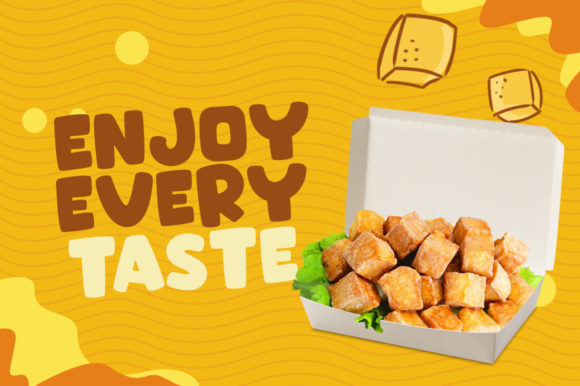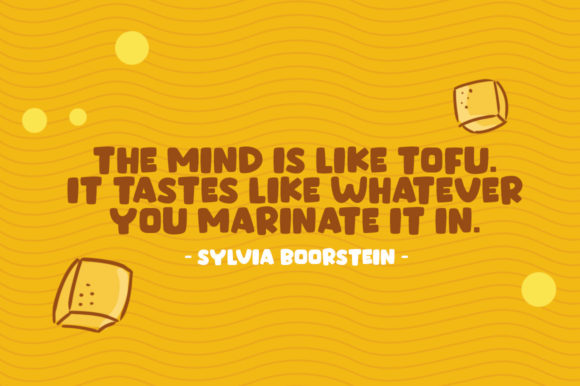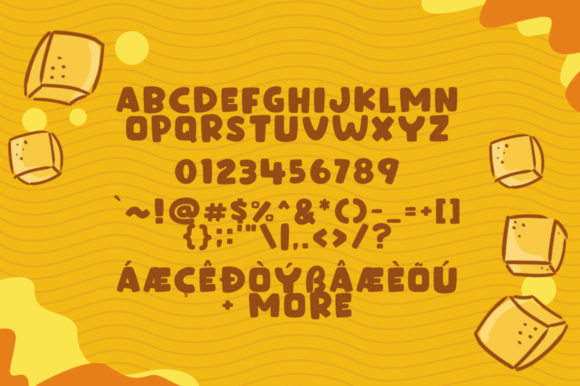
Crispy Tofu Font: The Ultimate Retro-Styled Display Font for Your Creative Projects
Are you a designer or crafter looking for a font that adds a fun and playful touch to your creations? Look no further than Crispy Tofu, a retro-styled display font that’s perfect for cartoon-related designs, children’s games, and any project that requires a lovely and eye-catching font. In this article, we’ll explore the features and benefits of Crispy Tofu, and why it’s an amazing choice for your next creative project.
What is Crispy Tofu Font?
Crispy Tofu is a display font that’s designed to bring a fun and playful vibe to your designs. With its retro-style aesthetic, this font is reminiscent of classic cartoons and children’s books. Its unique and quirky design makes it perfect for projects that require a touch of whimsy and personality.
Key Features of Crispy Tofu Font
- Retro-style design: Crispy Tofu has a distinctive retro-style design that’s perfect for creating nostalgic and playful designs.
- Fun and quirky: This font has a unique and quirky personality that’s sure to add a touch of fun to your designs.
- Perfect for display text: Crispy Tofu is designed specifically for display text, making it perfect for headlines, titles, and other prominent text elements.
- Easy to read: Despite its playful design, Crispy Tofu is easy to read, even at smaller sizes.
Use Cases for Crispy Tofu Font
Crispy Tofu is a versatile font that can be used in a variety of creative projects, including:
- Cartoon-related designs: Crispy Tofu is perfect for designing cartoon characters, comics, and other cartoon-related content.
- Children’s games: This font is great for designing children’s games, puzzles, and other educational materials.
- Posters and flyers: Crispy Tofu can be used to create eye-catching posters and flyers for events, promotions, and other marketing campaigns.
- Social media graphics: This font is perfect for creating social media graphics, including Facebook posts, Instagram stories, and Twitter headers.
Benefits of Using Crispy Tofu Font
There are many benefits to using Crispy Tofu in your creative projects, including:
- Unique and eye-catching: Crispy Tofu is a unique and eye-catching font that’s sure to grab attention.
- High-quality design: Crispy Tofu is designed to high standards, ensuring that your designs look professional and polished.
Crispy Tofu is a fun, retro-styled, and cool display font that’s perfect for designers and crafters looking to add a playful touch to their creations. With its unique and quirky design, this font is sure to grab attention and add a touch of personality to your designs. Whether you’re designing cartoon-related content, children’s games, or social media graphics, Crispy Tofu is an amazing choice. So why not give it a try and see the difference it can make in your next creative project?